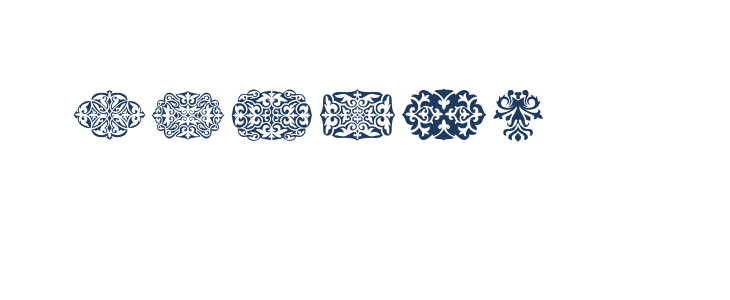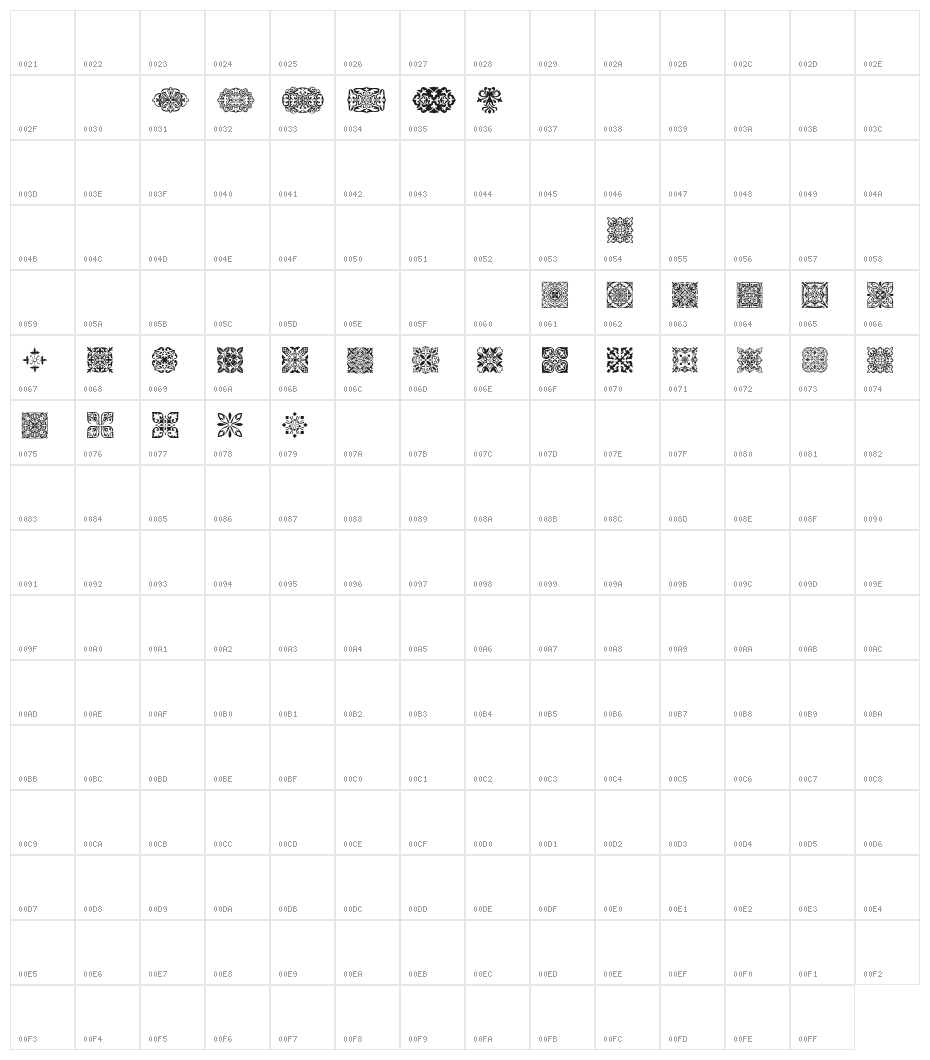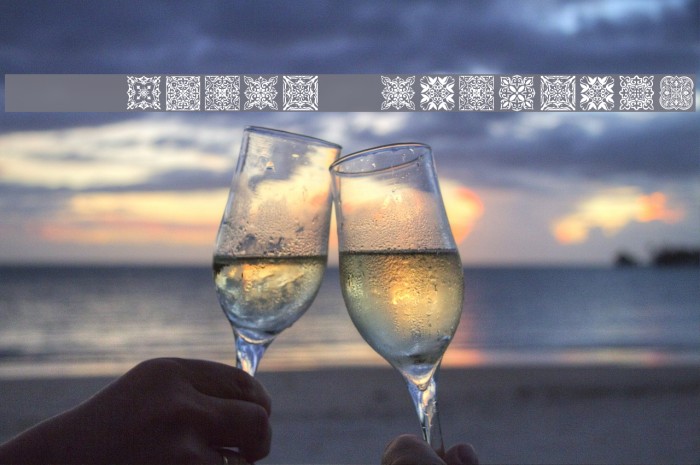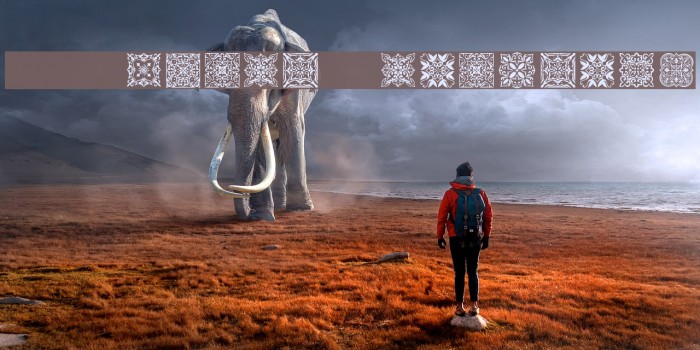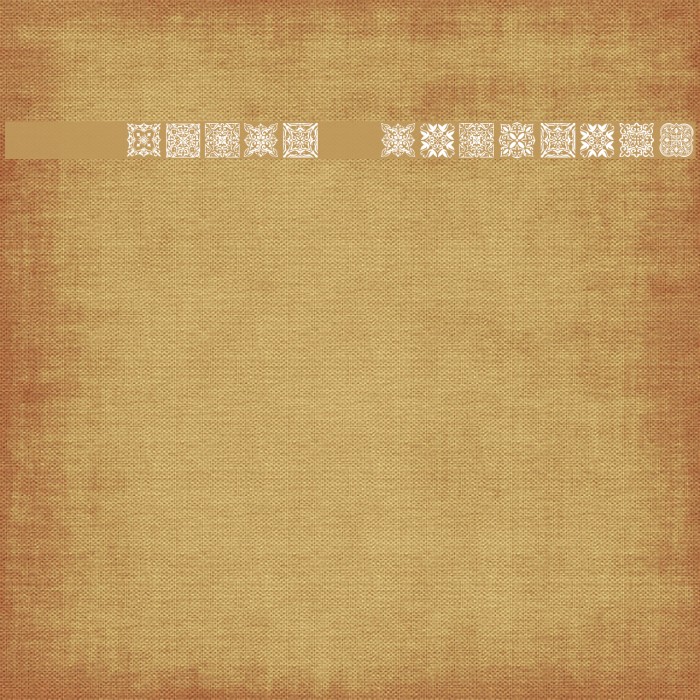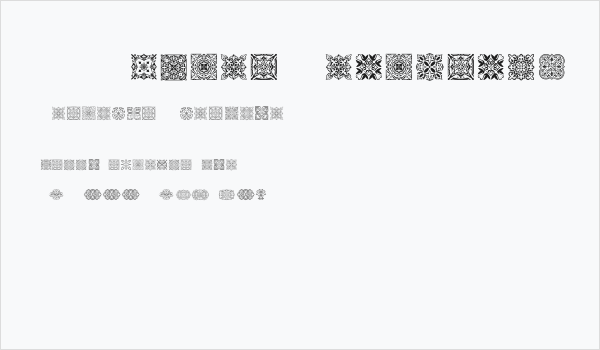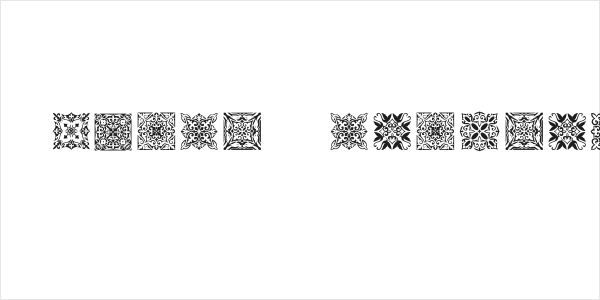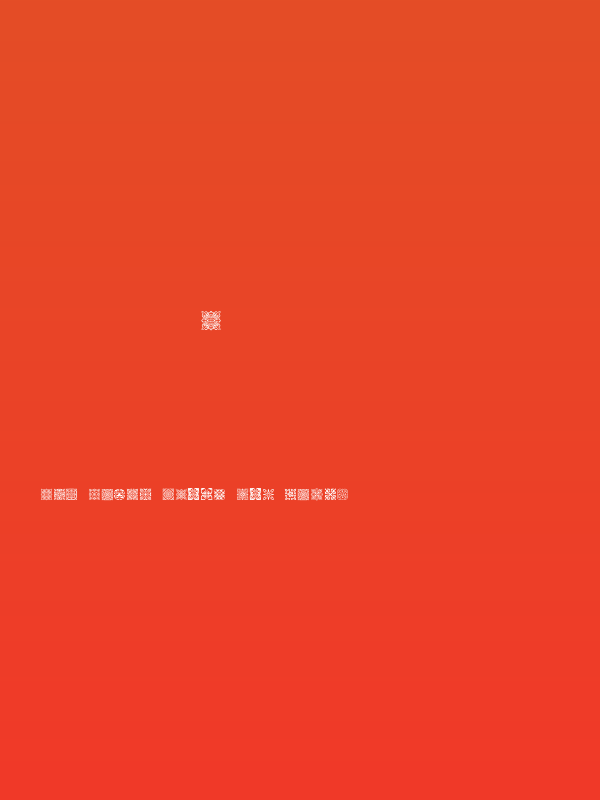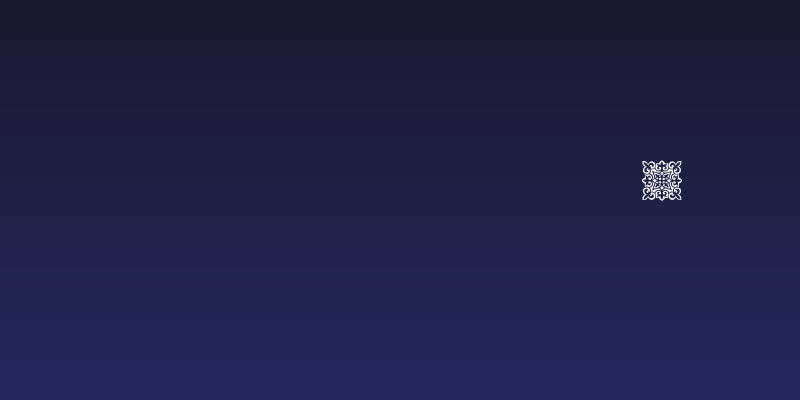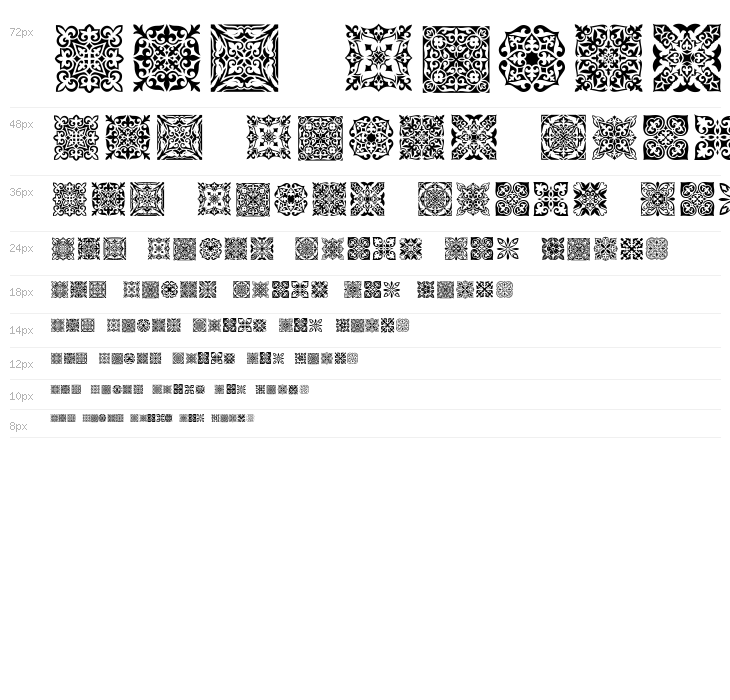
SL Square Ornaments Font
SL Square Ornaments Description
A collection of highly decorative, intricate square and ornamental glyphs featuring symmetrical, floral, and geometric motifs. The designs are bold, with high contrast between thick black lines and white space, evoking a vintage or classical ornamental style.
| Overall Style | Decorative, Vintage, Ornamental |
| Use Case | Borders, frames, embellishments, logos, decorative accents |
| Proposed Projects | Invitations, certificates, borders, decorative frames, branding, packaging, and digital scrapbooking. |